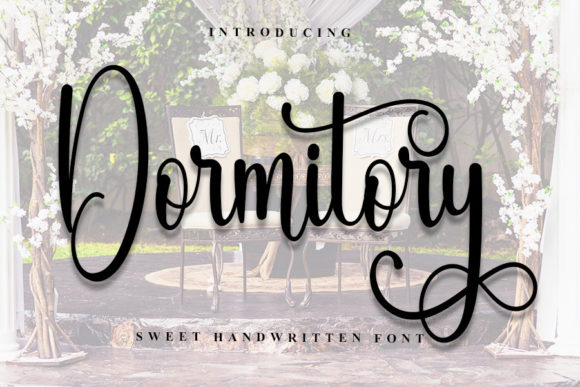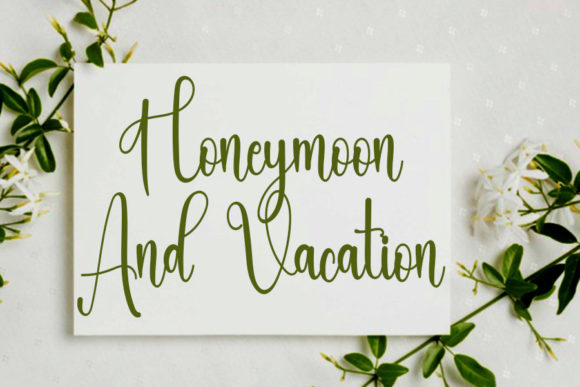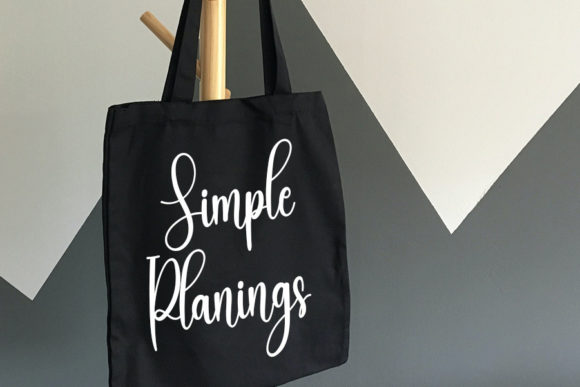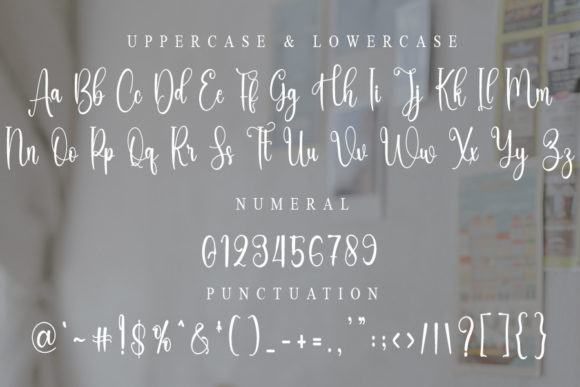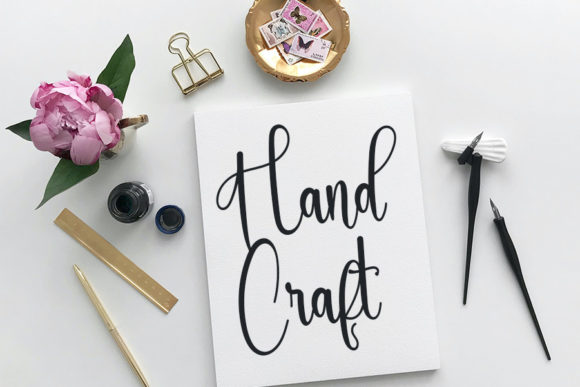
About Dormitory Font
**Blooms Font: Stylish Handwritten Elegance with Timeless Calligraphic Inspiration**
Introducing *Blooms Font*, a stylish handwritten typeface that exudes a contemporary atmosphere and impeccable form, drawing inspiration from timeless classic calligraphy. With a perfect balance and delightful variations, this font is meticulously designed to elevate the beauty of your projects.
The charm of *Blooms* lies in its stylish handwritten aesthetic, where each stroke reflects a harmonious blend of modernity and classic calligraphic influences. Its versatile nature makes it an ideal choice for logos, branding, invitations, and a myriad of creative endeavors.
What sets *Blooms Font* apart is its PUA encoding, ensuring effortless access to a rich array of amazing glyphs and ligatures. This feature empowers you to explore and integrate unique design elements seamlessly, allowing your creativity to flourish.
As you incorporate *Blooms* into your projects, you’ll experience how it effortlessly enhances the overall beauty. The font becomes a tool for expressing sophistication and style, transforming your designs into visually captivating creations.
In summary, *Blooms Font* is more than just a typeface; it’s a statement of stylish handwritten elegance with a touch of timeless calligraphic inspiration. Let it be the choice that brings contemporary flair to your logos, branding, invitations, and various creative projects, providing you with the flexibility to access an array of amazing glyphs and ligatures with ease!